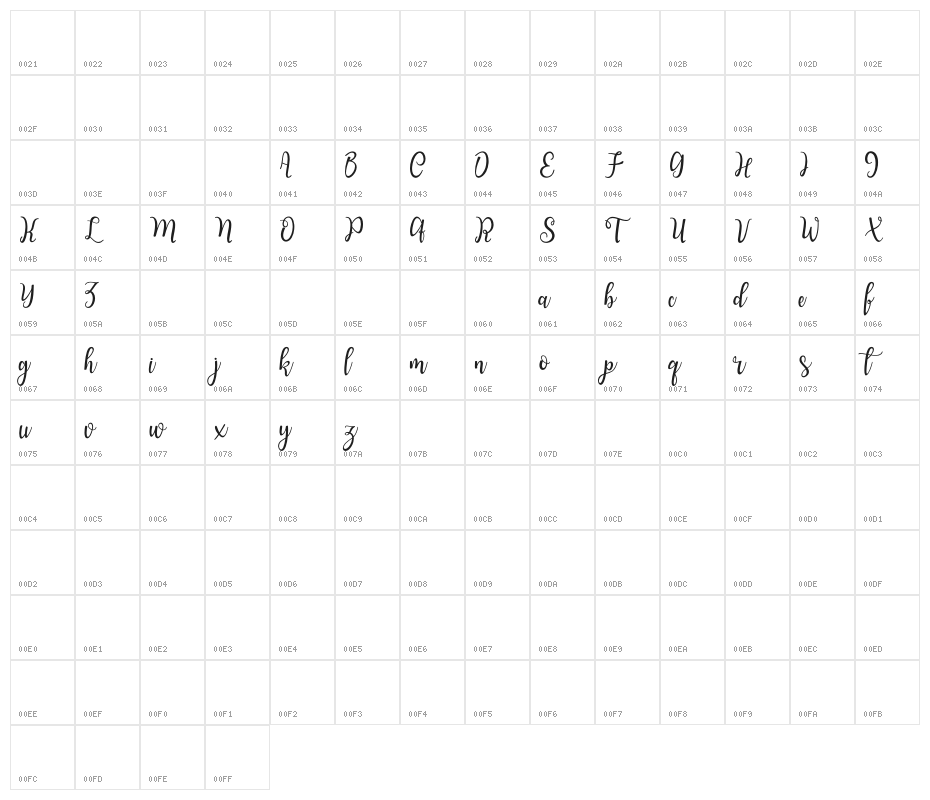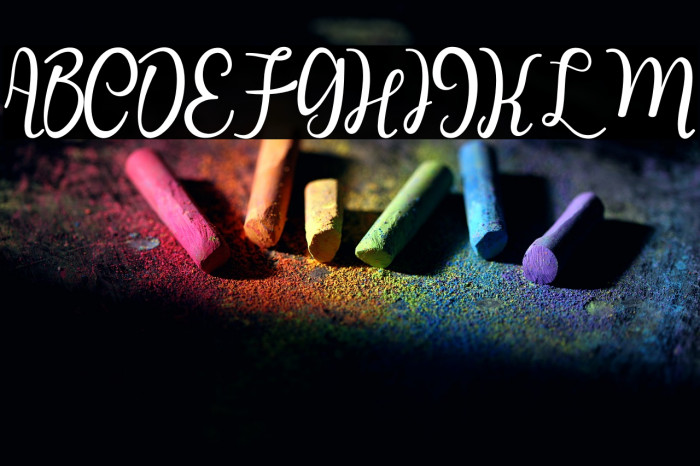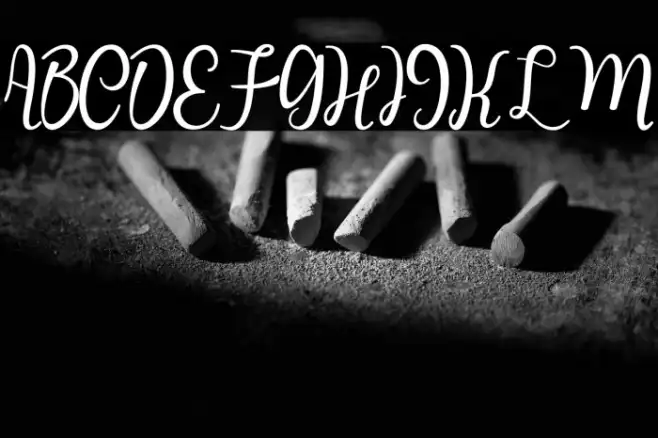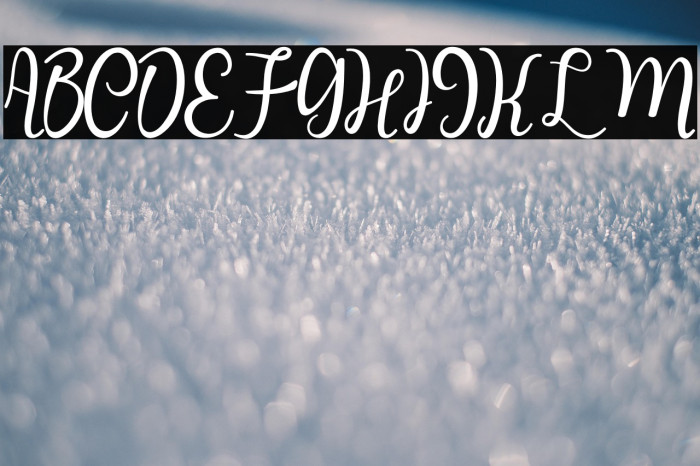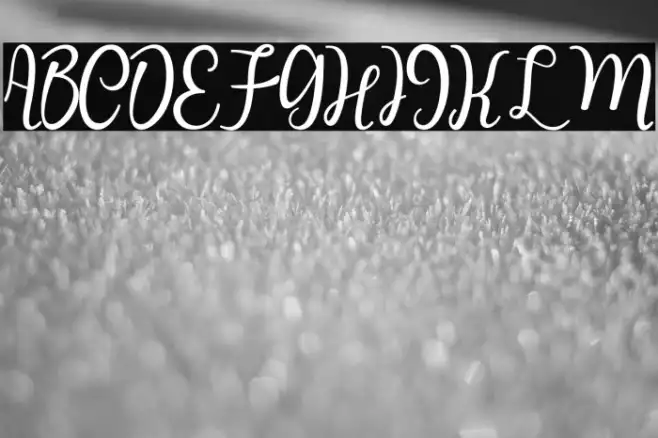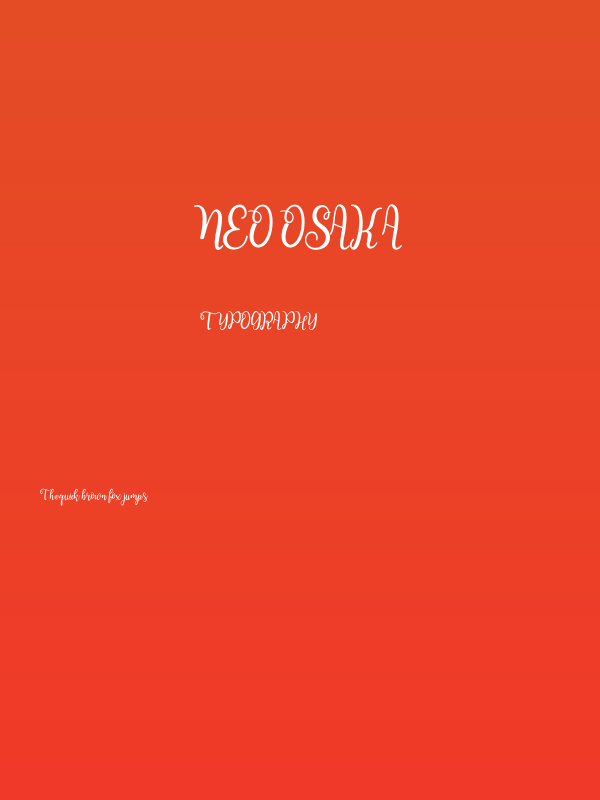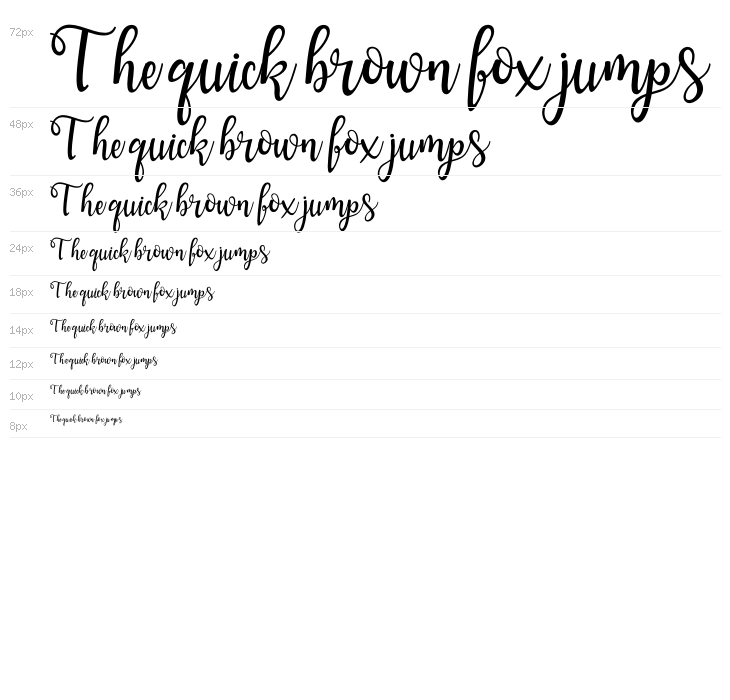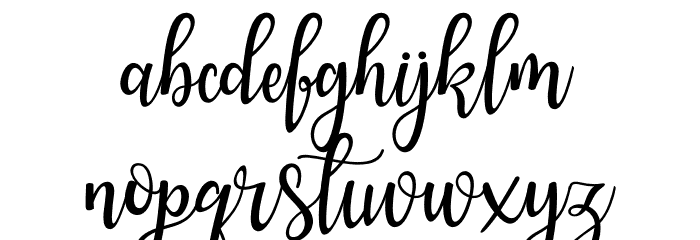
Neo Osaka Font
Neo Osaka Description
This font features a dynamic and flowing script style, characterized by its elegant and cursive letterforms. The uppercase letters exhibit a graceful, looping design with a consistent stroke width, while the lowercase letters maintain a fluid and connected appearance. The overall look is both sophisticated and playful, making it suitable for a variety of creative applications. The font's design incorporates a sense of movement and rhythm, with each character seamlessly transitioning into the next. This creates a harmonious and visually appealing text flow, ideal for projects that require a touch of elegance and personality.
| Overall Style | Elegant, Playful |